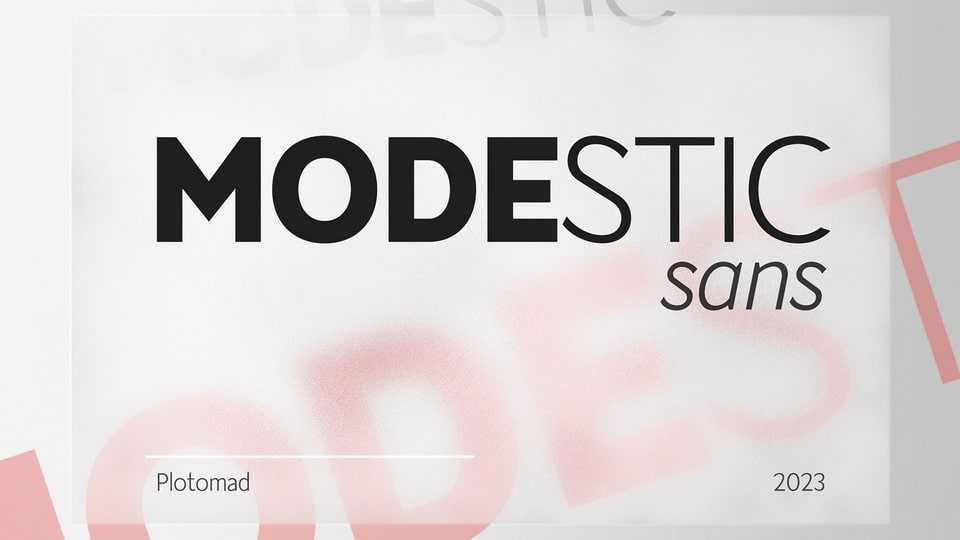
Download Modestic Sans font, a sans serif typeface that is simple, yet sophisticated. With a minimal design and low contrast, Modestic font is suited for both a workhorse text and display.
Designer: Aleksey Ryabov